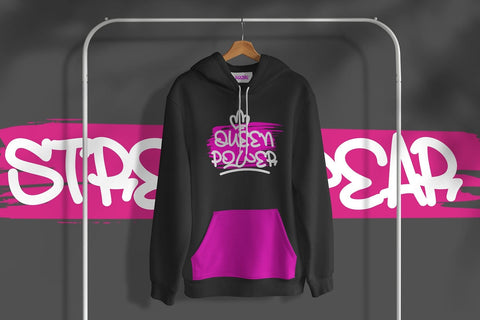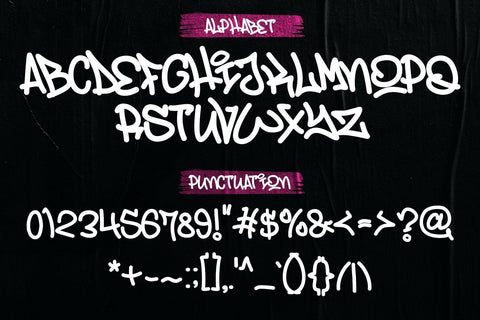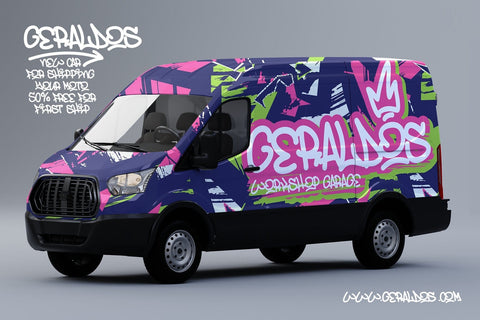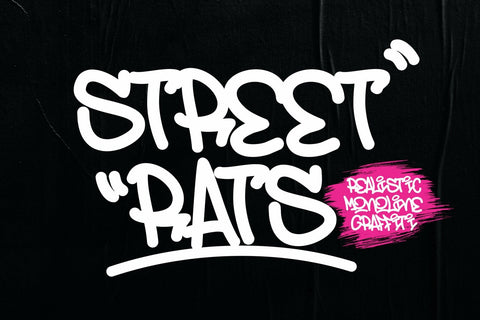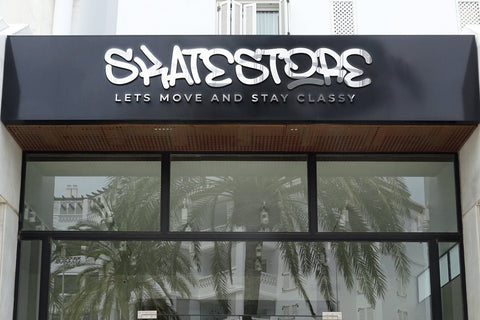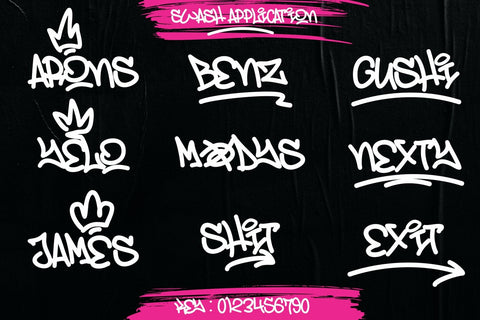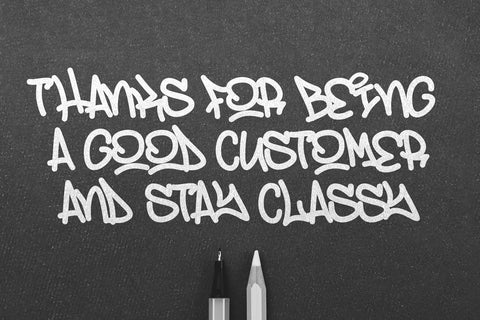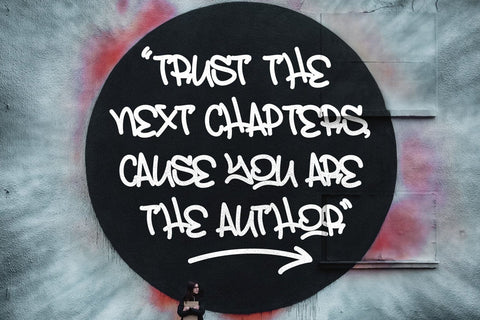
Street Rats - Natural Monoline Graffiti Typeface
Street Rats is a Handwritten font with a Realistic monoline graffiti style, with awesome swash perfect for your awesome urban designs. It will elevate a wide range of design projects to the highest levels, be it branding, headings, designs, invitations, signatures, logos, labels, and much more!
- Graffiti Characters looks